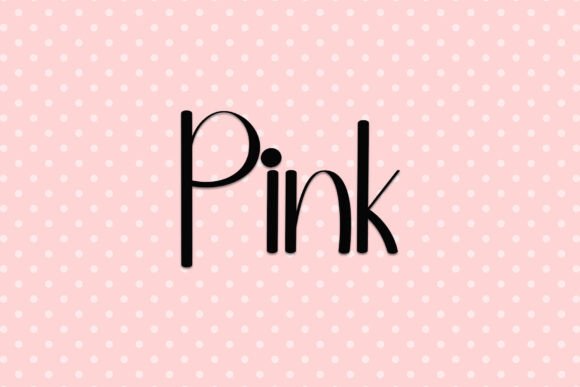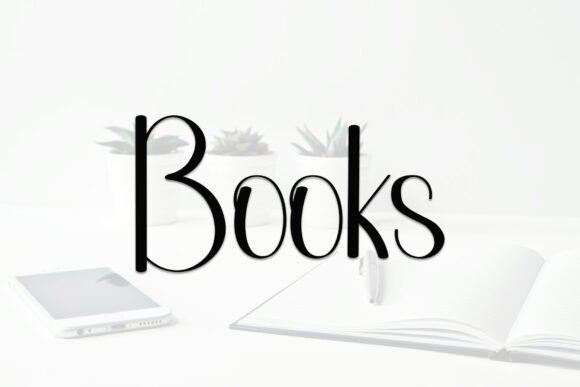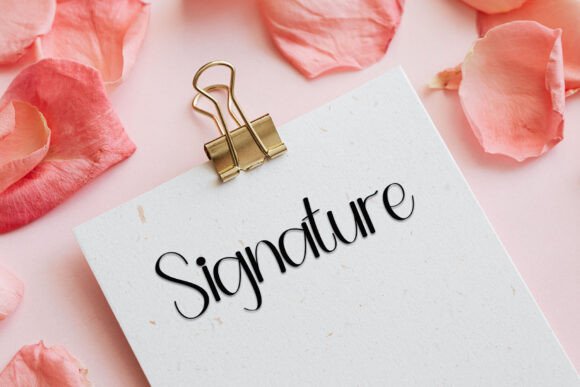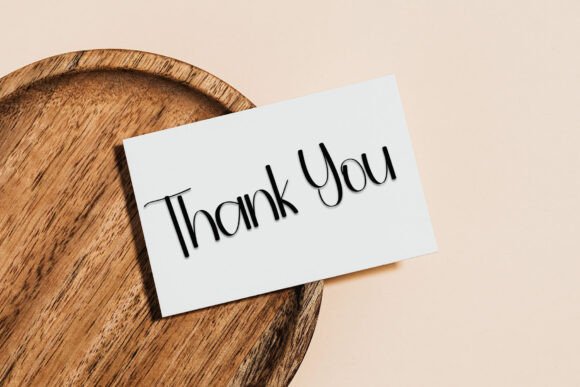
Baby Boy Font: The Sweet and Elegant Choice for Your Design Projects
Are you looking for a font that exudes sweetness, elegance, and romance? Look no further than the Baby Boy font, a beautiful cursive handwritten font that is perfect for a variety of design projects. In this article, we’ll explore the features and benefits of the Baby Boy font, and show you how to make the most of this gorgeous font in your designs.
What is Baby Boy Font?
Baby Boy font is a sweet and cursive handwritten font that is designed to add a touch of elegance and romance to your designs. With its gentle and flowing lines, this font is perfect for creating beautiful and eye-catching designs that will capture the attention of your audience. Whether you’re working on a branding project, a wedding invitation, or a marketing promotion, the Baby Boy font is sure to impress.
Key Features of Baby Boy Font
So, what makes the Baby Boy font so special? Here are some of its key features:
- Sweet and Cursive Handwritten Style: The Baby Boy font features a beautiful cursive handwritten style that is both elegant and casual.
- Versatile and Flexible: This font is perfect for a variety of design projects, from branding and logos to wedding invitations and marketing promotions.
- Easy to Read: Despite its elegant and cursive style, the Baby Boy font is easy to read and understand, making it perfect for body text and headlines.
- Fancy and Elegant yet Casual: The Baby Boy font strikes the perfect balance between elegance and casualness, making it perfect for designs that need to look sophisticated yet approachable.
Use Cases for Baby Boy Font
The Baby Boy font is incredibly versatile, and can be used in a wide range of design projects. Here are some ideas to get you started:
- Branding and Logos: Use the Baby Boy font to create a beautiful and memorable logo for your brand.
- Wedding Invitations and Stationery: Add a touch of romance and elegance to your wedding invitations and stationery with the Baby Boy font.
- Greeting Cards: Create beautiful and heartfelt greeting cards for special occasions with the Baby Boy font.
- Fashion and Lookbooks: Use the Baby Boy font to add a touch of elegance and sophistication to your fashion designs and lookbooks.
- Marketing Promotions: Make your marketing promotions stand out with the Baby Boy font, perfect for creating eye-catching headlines and body text.
Tips for Using Baby Boy Font
Here are some tips for getting the most out of the Baby Boy font:
- Pair it with Other Fonts: Experiment with pairing the Baby Boy font with other fonts to create a unique and eye-catching combination.
- Use it for Headlines and Body Text: The Baby Boy font is perfect for both headlines and body text, making it a versatile choice for a wide range of design projects.
- Adjust the Size and Color: Experiment with different sizes and colors to find the perfect combination for your design.
- Use it for Digital and Print Designs: The Baby Boy font is perfect for both digital and print designs, making it a great choice for a wide range of applications.
In conclusion, the Baby Boy font is a beautiful and versatile font that is perfect for a wide range of design projects. With its sweet and cursive handwritten style, elegant and casual vibe, and ease of use, this font is sure to become a favorite among designers and crafters. Whether you’re working on a branding project, a wedding invitation, or a marketing promotion, the Baby Boy font is sure to impress.